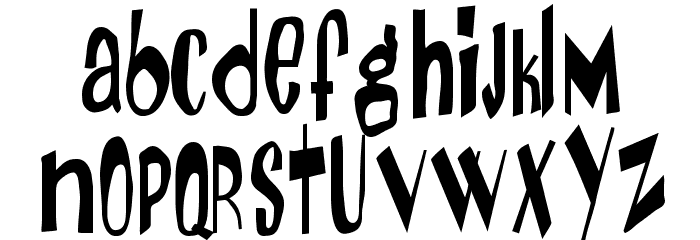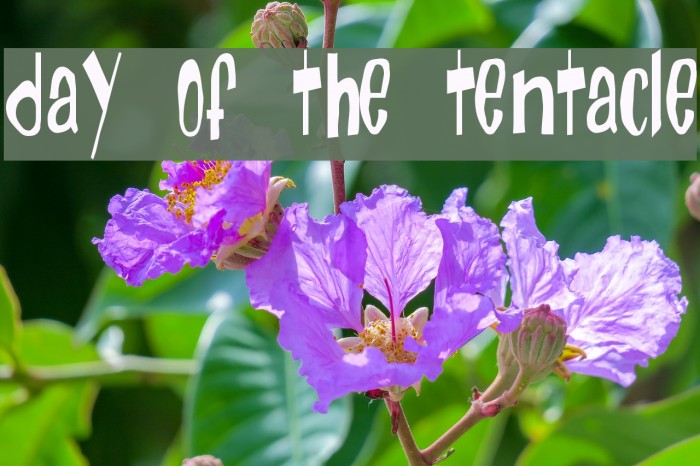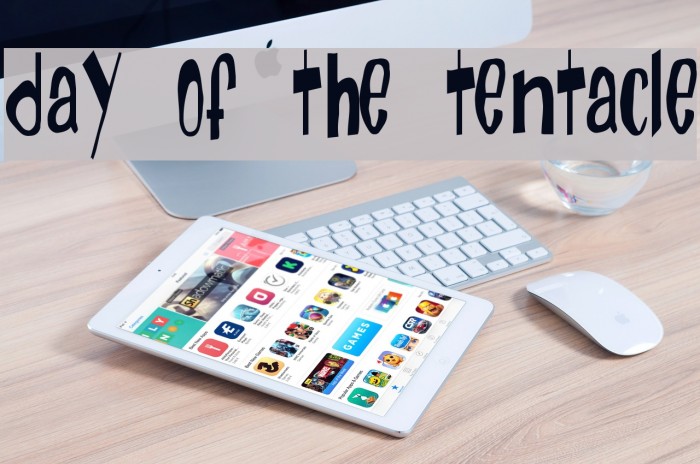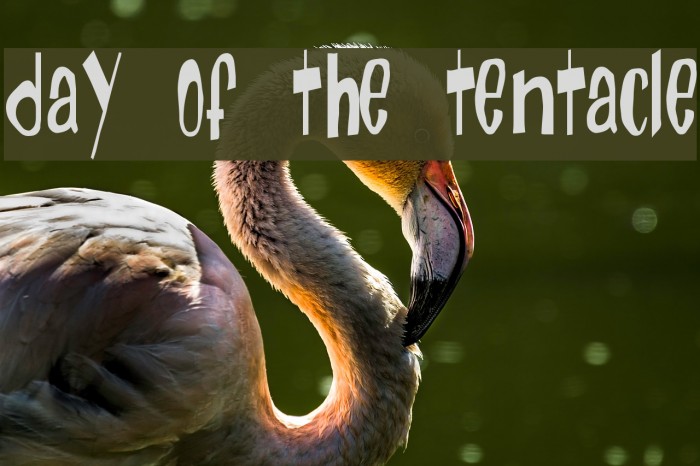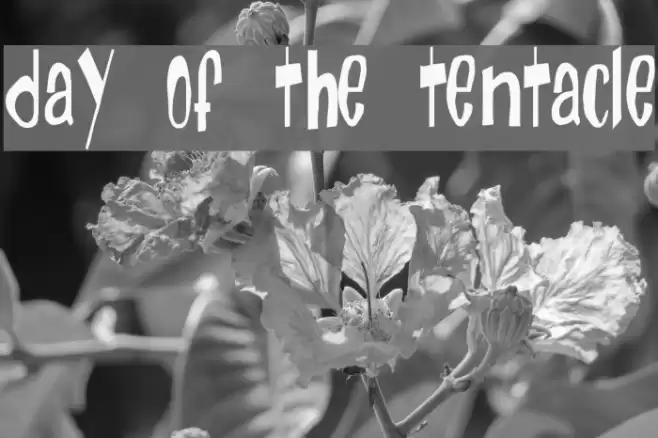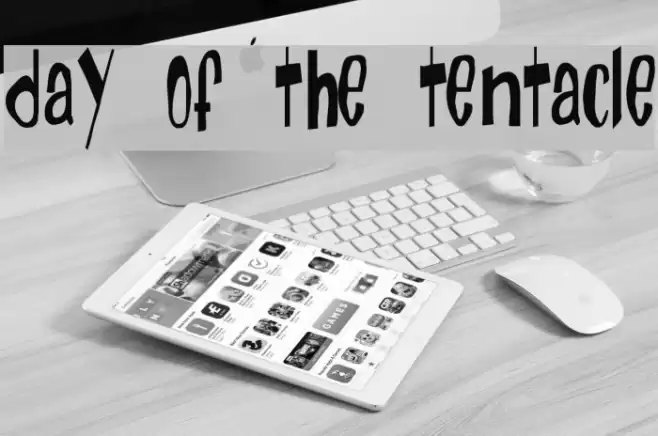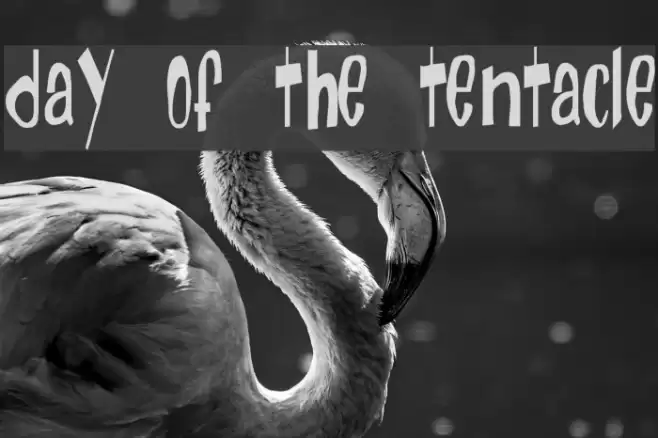
Day Of The Tentacle Font
This font features a playful and quirky design, characterized by its irregular and exaggerated shapes. The letters have a whimsical, cartoonish style, with varying stroke widths and unique angles that give it a dynamic and energetic appearance. The uppercase and lowercase letters maintain a consistent theme, with each character exhibiting a distinct personality. The font's bold and expressive nature makes it ideal for creative and fun projects. Its unique style captures attention and adds a touch of humor and lightheartedness to any design.
A playful, cartoonish font with irregular shapes and exaggerated strokes.
- Font: Day Of The Tentacle
- Overall Style: Whimsical